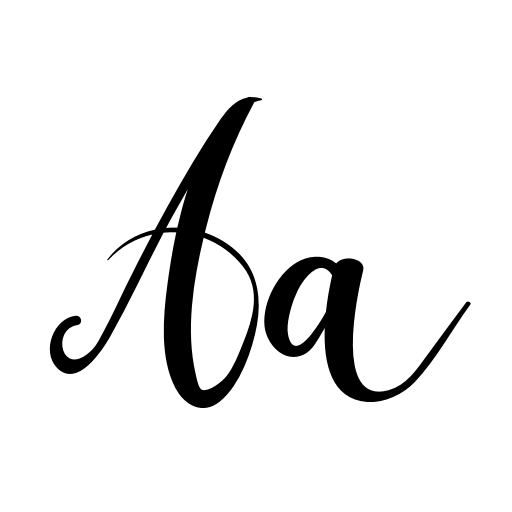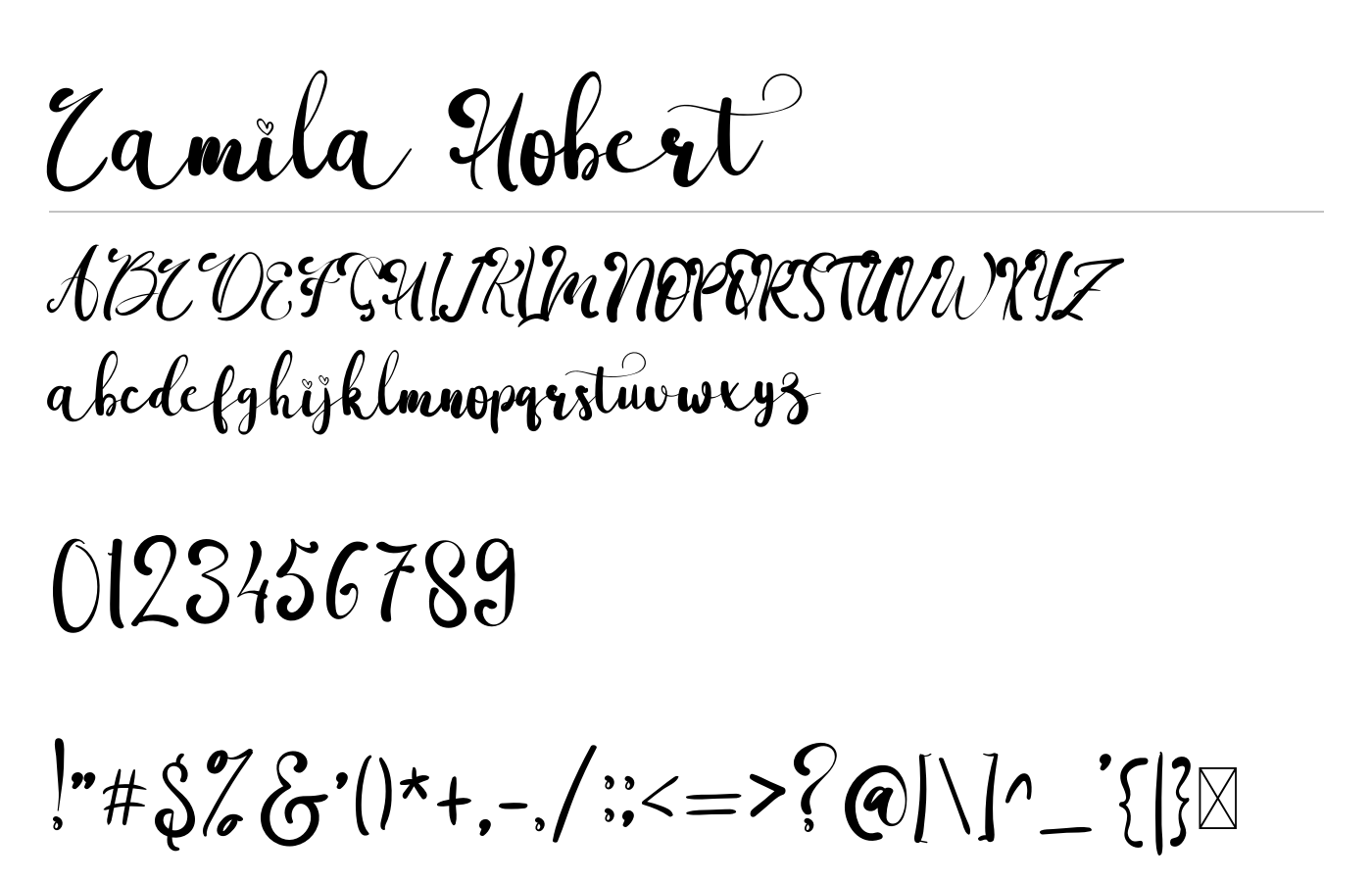
Camila Hobert is a charming script font with a lively and elegant personality, featuring flowing, hand-drawn strokes and playful heart details that add a whimsical touch. Its smooth, moderate weight and graceful letterforms make it ideal for invitations, branding, and feminine or romantic design projects that seek a personal, handcrafted feel. This font works beautifully in headlines or decorative text where its delicate and stylish character can shine.
Camila Hobert Font